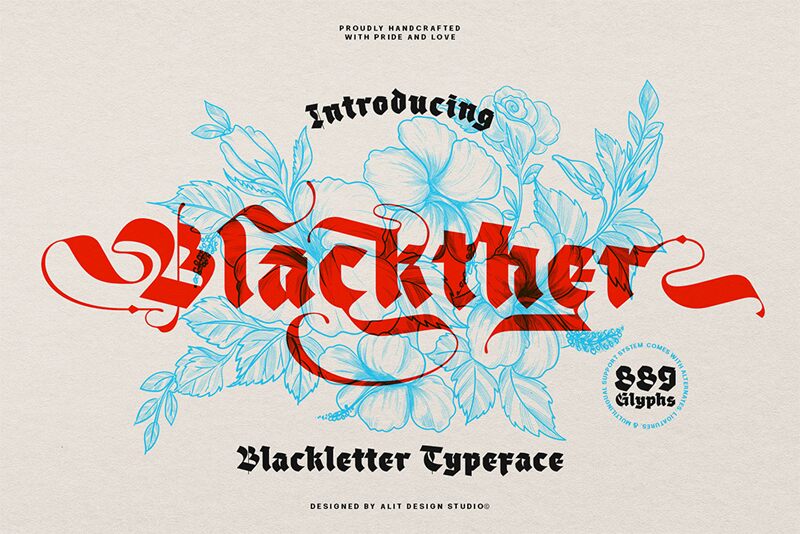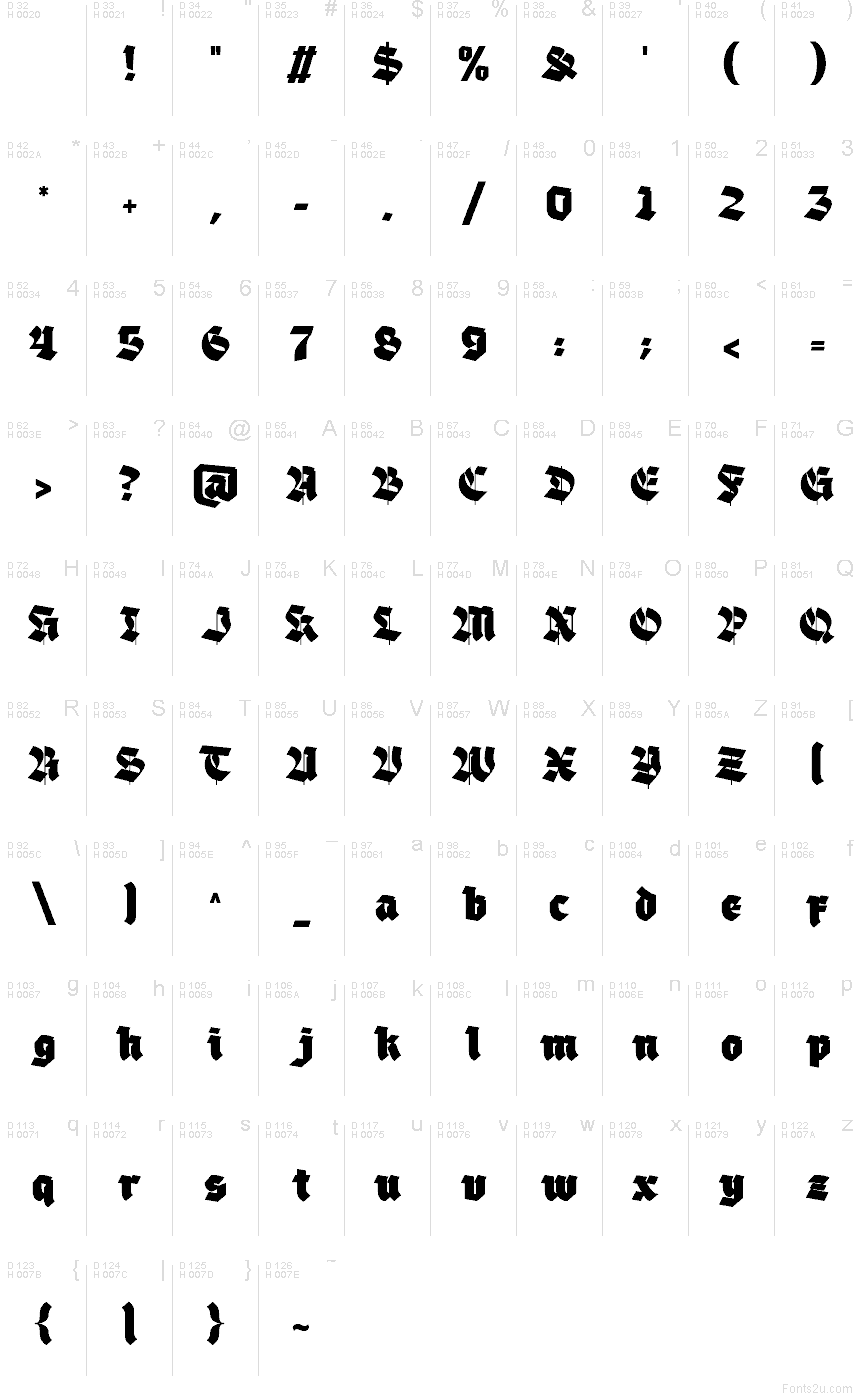
Blackther Regular
Blackther font by Alit Design is a free gothic typeface that hits that sweet spot between medieval drama and modern edge. Its bold, ink-heavy strokes feel like they’ve been carved with a blade, while the subtle curves keep it readable and refined instead of messy. The letters lock together with a tight, rhythmic flow, giving logos and wordmarks a strong, ceremonial presence that feels both luxurious and dangerous.
Using Blackther, this free font shines on band identities, tattoo-inspired branding, game titles, dark fashion labels, brewery or spirits packaging, and dramatic posters. The dense texture and angular forms instantly set a moody tone, so you don’t need much else on the page. Try pairing Blackther with a clean geometric sans for body copy and keep it large, letting a few powerful words carry the entire layout.